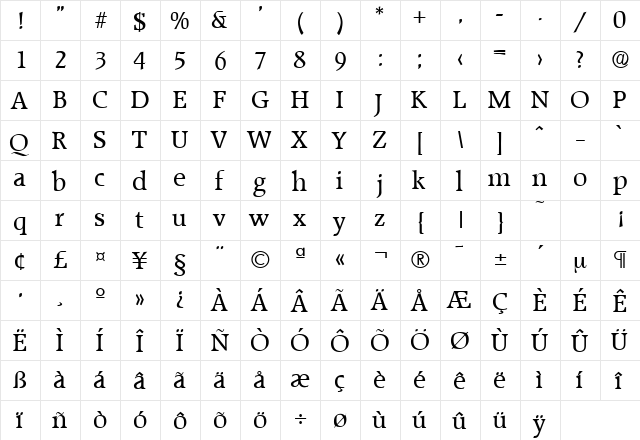
Raleigh-Serial DB Regular
Design Context for Raleigh-Serial DB Typeface
Raleigh-Serial DB offers clean, dependable letterforms without strong stylistic allegiance, making it a practical choice for designers who need flexibility.